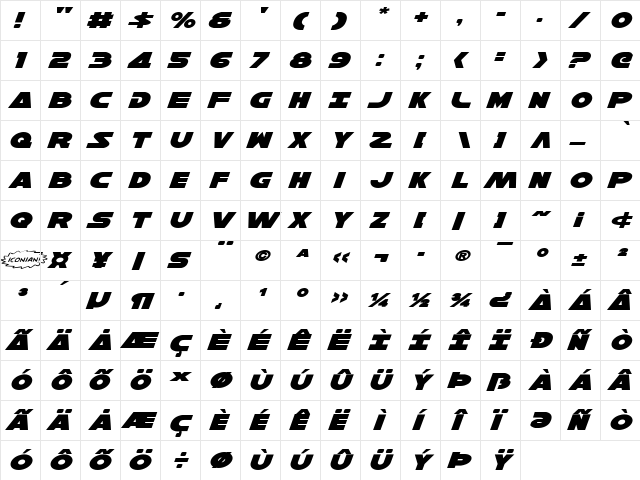
Han Solo Expanded Italic Expanded Italic
Design Context for Han Solo Expanded Italic Typeface
Han Solo Expanded Italic offers clean, dependable letterforms without strong stylistic allegiance, making it a practical choice for designers who need flexibility. The dynamic lean of this cut emphasises speed and emphasis in any layout.
Pro Tip: Use Han Solo Expanded Italic for emphasis, pull quotes, and subheadings where its slanted energy can add rhythm to the layout.